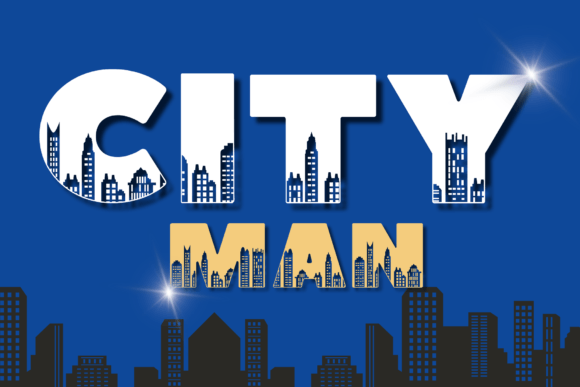
Journey into the realm of urban aesthetics with City Man Font, a captivating display font that will infuse your designs with a dash of coolness and playfulness. This font is meticulously crafted to capture the essence of city life, with its bold and edgy strokes that evoke the energy and vibrancy of bustling streets.
Unleash your creativity and let City Man Font transport you to a world of endless possibilities. Whether you're designing T-shirts, crafting heartfelt cards, adding a personal touch to party invitations, or creating eye-catching wall art, this font will elevate your designs to new heights.
Picture your designs adorned with City Man Font's unique charm. Its playful nature will add a touch of whimsy to your T-shirts, while its bold presence will make your cards stand out from the crowd. Party invitations will come alive with an infectious energy, inviting your guests to join you in celebrating life's special moments.
Embark on a creative adventure with City Man Font. Let your imagination soar as you create stunning wall art that reflects your personal style. Transform ordinary bags into fashion statements with the font's distinctive flair. The possibilities are limitless, waiting for you to explore and unleash your creativity.
Immerse yourself in the world of City Man Font, where urban aesthetics and creative expression collide. Embrace the font's versatility and let it ignite your imagination. With City Man Font as your creative companion, your designs will radiate with a captivating charm that will leave a lasting impression.